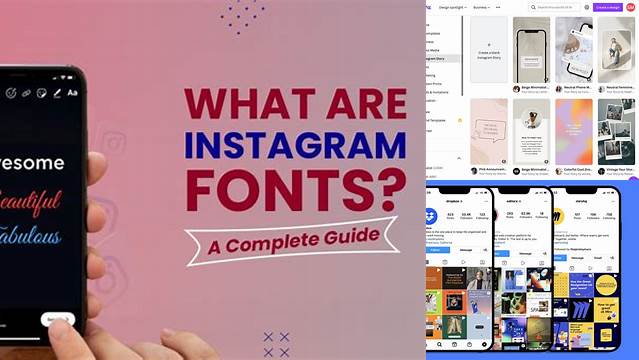
Instagram Fonts: A Complete Guide To Branding & Design
Instagram, the visual playground for brands and creators, is all about making a statement. And what's a statement without the right font? Choosing the perfect fonts in use Instagram isn't just about aesthetics; it's about crafting a brand identity, conveying a message, and capturing attention in a feed flooded with content. This guide dives deep into the world of Instagram fonts, exploring how to select the best ones, use them effectively, and avoid common pitfalls. We'll cover everything from understanding different font categories to using online tools to identify fonts you love, so you can level up your Instagram game. Are you ready to transform your Instagram profile?
Decoding the Font Landscape: Categories and Characteristics
Before jumping into font selection, it's helpful to understand the various font categories. Knowing their characteristics can help you find the perfect font to match your brand’s personality. Let's break down the common font types and what they communicate. First up, we have Serif fonts. These classic fonts, with their small decorative strokes at the ends of letters (serifs), evoke a sense of tradition, elegance, and sophistication. Think of fonts like Times New Roman or Georgia. These fonts are often used for long-form content, such as blog posts or books, because the serifs guide the eye across the page, improving readability. In the Instagram world, you might see serif fonts used for luxury brands, fashion houses, or businesses that want to project a sense of heritage and credibility. The beauty of serif fonts lies in their ability to convey a sense of trust and history, making them a solid choice for brands that want to establish a strong, reliable presence. Keep in mind that when you use serif fonts on Instagram, especially in captions or on your photos, you want to make sure the font size is big enough for the users to read it without having to zoom in.
Next, we have Sans-Serif fonts. These fonts, as the name suggests, lack the decorative strokes. They're clean, modern, and often considered more versatile than serif fonts. Helvetica, Arial, and Roboto are popular examples. Sans-serif fonts are known for their readability and simplicity, making them ideal for digital platforms. On Instagram, you'll see them used by a wide range of brands, from tech companies to lifestyle brands. Their clean lines and uncluttered appearance make them perfect for conveying a modern, minimalist aesthetic. They are a good choice for brands that want to appear approachable, contemporary, and easy to connect with. One advantage of sans-serif fonts is that they tend to be highly legible, even at small sizes, which is crucial for Instagram posts where text can often appear small on mobile screens. The adaptability of sans-serif fonts makes them a go-to choice for a wide range of businesses and is very trendy right now.
Script fonts mimic handwriting and are often used to add a touch of personality and flair. They can range from elegant and formal to casual and playful. Fonts like Brush Script and Lobster are popular examples. Script fonts work great for brands that want to convey a sense of creativity, individuality, or a personal touch. You might see them used by artists, boutiques, or brands that want to cultivate a sense of warmth and intimacy. However, be mindful of readability – script fonts can sometimes be challenging to read at small sizes, so it's important to choose a font that's clear and legible, especially in a fast-paced environment like Instagram. Another element you may consider is the font’s mood: Are you looking for something lighthearted, or something more serious? The mood of your text will make the audience connect to your message. Finally, there are Display fonts, which are designed to grab attention. They're often bold, unique, and used sparingly. Display fonts can add a sense of personality and excitement to your posts, but they should be used strategically. You could see them used for headlines, quotes, or other areas where you want to make a statement. Examples include Impact and Bebas Neue. The versatility of display fonts makes them a great way to make your profile unique and make a statement to your audience.
Understanding these categories is the first step toward making informed font choices. Now you can start to think about how these fonts can be used on your Instagram account.
Finding Your Font Soulmate: Matching Fonts to Your Brand
Choosing the right fonts in use Instagram is a crucial step in building a strong brand. Your chosen font should not only look good, but it should also represent your brand's personality and the message you are trying to convey. Think of your font choices as an extension of your brand's voice and visual identity. Let's explore how to find fonts that resonate with your brand and the types of personality each font can convey. Start by defining your brand personality. Is your brand playful and energetic, or sophisticated and serious? Are you targeting a young, trendy audience or a more established demographic? Understanding your brand's core values and target audience is essential. Think about the overall feeling you want to evoke. Do you want to be seen as modern and minimalist? Traditional and trustworthy? Bold and innovative? Each font style conveys different feelings, and it is very important to find the right one. You can also develop a mood board of images, colors, and other design elements that represent your brand. This will help you visualize the aesthetic you're aiming for. Look at what your competitors are doing. What fonts are they using? How do those fonts make you feel? What do they do well, and what could they improve? This doesn't mean copying them, but rather, using their choices as inspiration.
Once you've defined your brand personality, start exploring different font options. Websites like Google Fonts, Adobe Fonts, and Font Squirrel offer a wide range of free and paid fonts. As you explore different fonts, consider their characteristics. Does the font have a clean and modern look, or does it have a more traditional feel? Is it easy to read? What is the overall weight and style of the font? Try pairing different fonts together. Experiment with different combinations of headlines and body text. Use a tool like Canva or Adobe Photoshop to create mockups of your Instagram posts with different font pairings. See how the fonts look on your photos and videos. Does the font complement your visual content, or does it clash with it? Are the fonts legible in the context of an Instagram feed? Be sure to test them on different backgrounds and sizes to ensure they are readable. Check how the fonts will appear on mobile devices. This is where most people view Instagram, so it's important that your text is easy to read. Choose a font that is easy to read, even at smaller sizes.
Once you have a few font options, try using them in your Instagram posts for a trial period. See how your audience responds to them. Are you getting more engagement? Are your posts getting more views? Make sure you measure the results to help you analyze whether or not the fonts are bringing value to your profile. Track your analytics to see which font combinations perform the best. Don't be afraid to change it up. The more you experiment with different fonts, the more you learn about what works best for your brand. Keep in mind that consistency is key. Once you've chosen a font or a set of fonts, stick with them to establish a recognizable brand identity. It is also important to make sure that your font is also accessible and inclusive. Consider people who have difficulties reading. By choosing a font that can be easily read, you will ensure your content can be enjoyed by everyone. Remember, your fonts are a visual representation of your brand. The right font choices can make all the difference.
Mastering the Art of Font Usage on Instagram
Once you’ve selected your ideal fonts in use Instagram, the next step is learning how to use them effectively. Knowing how to incorporate your fonts into your content is just as important as the fonts themselves. Effective font usage can amplify your brand's message and make your posts visually appealing. Let's look at some strategies for maximizing the impact of your font choices on Instagram. Choose font pairings that complement each other. A good rule of thumb is to pair a display font for headlines with a more readable font for the body text. This helps create visual hierarchy and makes your content easier to scan. If you choose two serif fonts or two sans-serif fonts, they will likely clash. The best approach is to mix and match them. Limit the number of fonts you use. Sticking to a maximum of two or three fonts will ensure your content looks clean and professional. Too many fonts can make your posts look cluttered and confusing.
Pay attention to font size and spacing. Ensure that your text is readable on all devices, especially mobile phones. Use a font size that’s large enough to be easily read and adjust line spacing for better readability. Consider the visual hierarchy. Use different font sizes, weights, and styles to emphasize important information and guide the viewer's eye. Headings should be larger and bolder than body text, and use different font styles for different elements. Don't use all caps. It can be hard to read, especially in long blocks of text. Use all caps sparingly for emphasis. Consider the context of your content. Your fonts should complement your photos and videos. If you have a lot of visual elements, your text should be clear and simple. Try matching the fonts to the mood of your content. Choose fonts that will enhance the story you're trying to tell, and make sure the color of your font also complements the visuals. Be mindful of font colors. Make sure your text stands out against the background. Avoid using light-colored fonts on light backgrounds and dark-colored fonts on dark backgrounds. Experiment with different colors and gradients to see what works best.
Incorporate fonts into your Instagram Stories. Stories offer unique opportunities to use fonts in creative ways. Use text to overlay your photos and videos, add polls, and create engaging quizzes. You can also use fonts in different ways. Take advantage of Instagram’s built-in text tools and explore third-party apps like Canva or Adobe Spark for even more font options and design capabilities. Create a consistent brand style. The way your fonts are used can also bring your brand identity together. Be consistent with your font choices and their usage across all your Instagram posts. This will help your audience recognize your brand and create a cohesive visual experience. Think about accessibility. Make sure your text is accessible to everyone, including people with visual impairments. Use high-contrast color combinations, and use alt text to describe images and videos. By focusing on these details, you can really get the most out of your brand!
Conclusion: Elevate Your Instagram with Strategic Font Choices
Choosing the right fonts in use Instagram is a powerful way to enhance your brand's presence and connect with your audience. By understanding the basics of font categories, matching fonts to your brand, using them effectively, and avoiding common mistakes, you can transform your Instagram feed into a visual masterpiece. Whether you're a seasoned marketer or a budding creator, the tips and tricks outlined in this guide will empower you to make informed font choices. So, embrace the world of fonts, experiment with different styles, and create an Instagram profile that truly reflects your brand's unique personality. Start with this guide, and start creating your amazing Instagram profile!